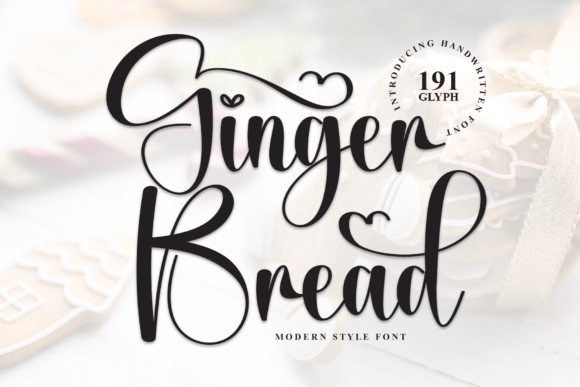
Ginger Bread Font: The Perfect Recipe for Elegant Designs
Have you ever found yourself scribbling down a loved one’s name in a beautiful, flowing script, only to wish you could bottle up that feeling and use it in your next design project? As creatives, we’ve all been there – searching for that perfect touch of personality in our work. That’s where the Ginger Bread Font comes in, a stylish and elegant script font that’s about to become your new go-to ingredient for making designs truly special.
This versatile font is perfect for adding a handwritten touch to wedding invitations, thank you cards, quotes, and logos – basically any design that needs a little extra love. And the best part? It’s incredibly easy to use, making it a valuable addition to any designer’s toolkit.
Ginger Bread Font Key Features
- Unique Characteristics: The Ginger Bread Font features a unique, hand-drawn design with intricate details and textures, giving it a warm and inviting feel.
Ginger Bread Font Review
Overall, I’m really fond of the Ginger Bread Font. ✨ The unique blend of whimsical and playful characteristics makes it perfect for creating a festive atmosphere, especially during the holiday season. The font is well-suited for projects that require a touch of warmth and nostalgia.
Here are some of the features that make the Ginger Bread Font stand out:
- ✨ Unique and distinctive letterforms that evoke a sense of nostalgia
- ✨ Perfect for creating a festive and playful atmosphere
- ✨ Well-suited for projects that require a touch of warmth and whimsy
- ✨ High-quality vector graphics
However, there are a few limitations that I think are worth mentioning:
- ⚠️ Limited character set, which may not be ideal for extensive text-based projects
- ⚠️ May not be suitable for formal or professional applications
In conclusion, I think the Ginger Bread Font is a great addition to any designer’s toolkit. While it may not be the most versatile font, its unique characteristics and playful vibe make it perfect for certain types of projects. With a little creativity, the Ginger Bread Font can add a lot of personality to your designs.
Tips for Getting the Most Out of Ginger Bread Font
Here are some tips for getting the most out of Ginger Bread Font:
– Use Ginger Bread Font in combination with other playful fonts to create a unique and eye-catching design.
– Experiment with different font sizes and styles to add visual interest to your design.
– Use Ginger Bread Font for headings and titles to draw attention to important information.
Common Use Cases for Ginger Bread Font
Here are some common use cases for Ginger Bread Font:
– Holiday invitations and cards
– Food and beverage branding
– Children
Alternatives to Ginger Bread Font
Ginger Bread Font is a popular script font used for its warm, inviting feel. However, it may not be the best fit for every design project. Here are a few alternatives to consider:
Q: What is the recommended font size and line height for Ginger Bread Font?
The recommended font size for Ginger Bread Font is 12-14 points, with a line height of 1.2-1.5 times the font size. This will ensure optimal readability and aesthetic appeal. However, feel free to experiment with different font sizes and line heights to achieve the desired look and feel for your project.